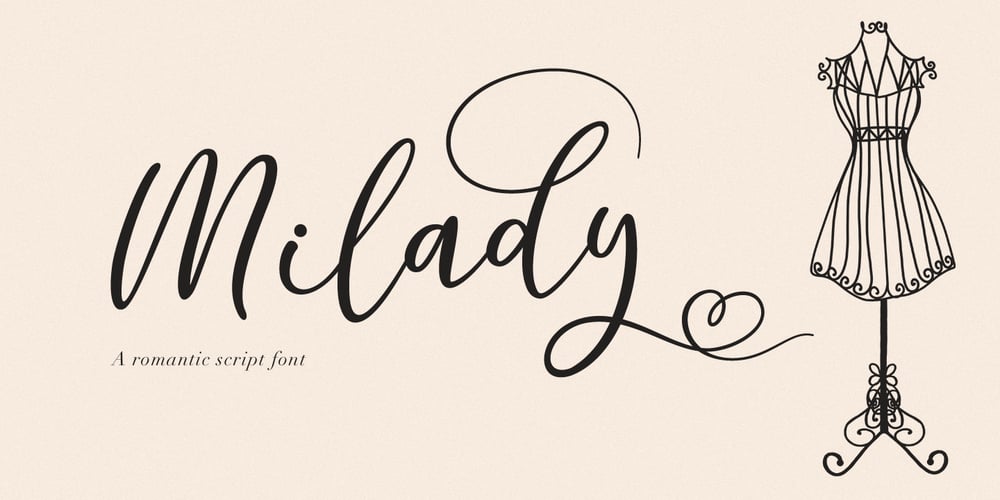
Milady Font Family was designed by Pavel Larin and published by Larin Type Co. Milady contains 1 styles and family package options. Milady script font was inspired by romance, lightness and modern calligraphy. It will not leave indifferent those who are looking for a font in an elegant and modern handwritten style. This font fits perfectly into your project, with it you can easily give your design a more classic look or make it more elegant and romantic. All this can be done thanks to alternates. In this font I prepared many alternates so that you could make your project unique and choose what suits you! All characters of this font are PUA encoded.